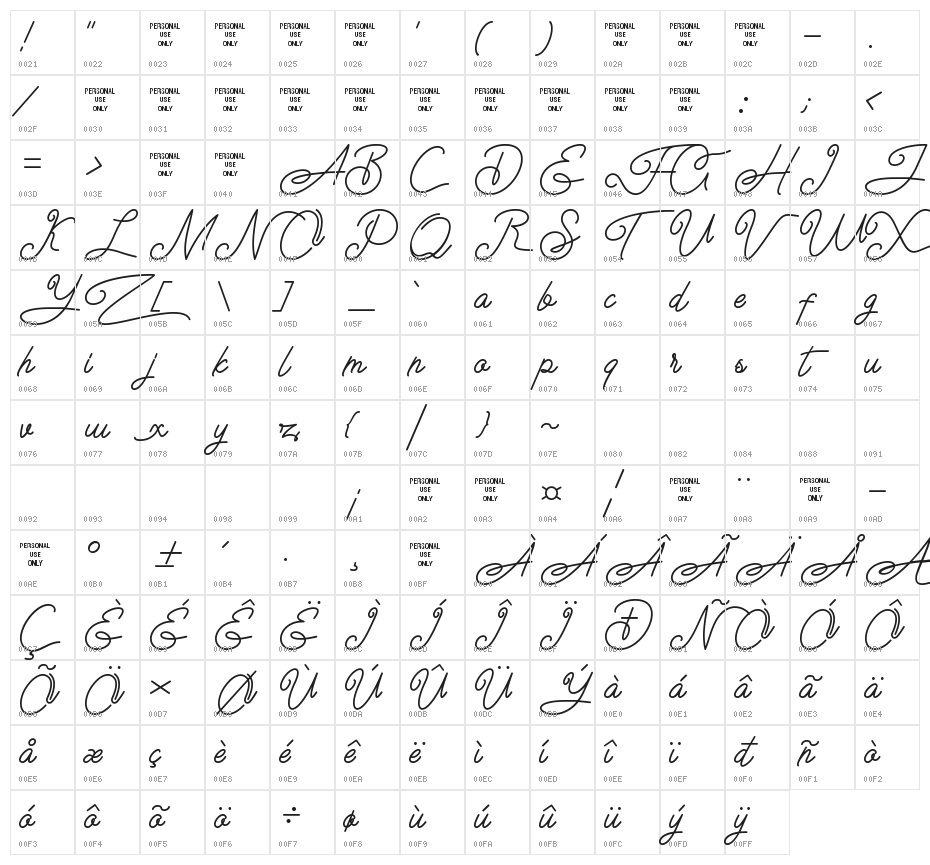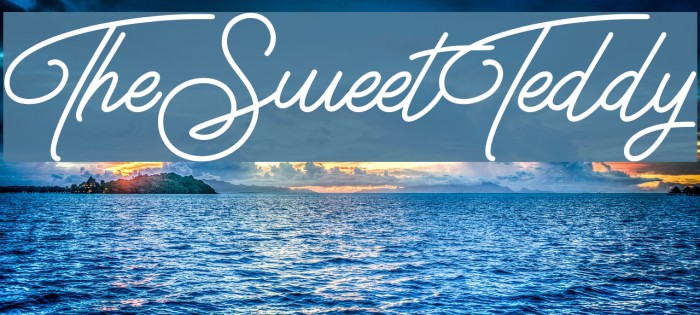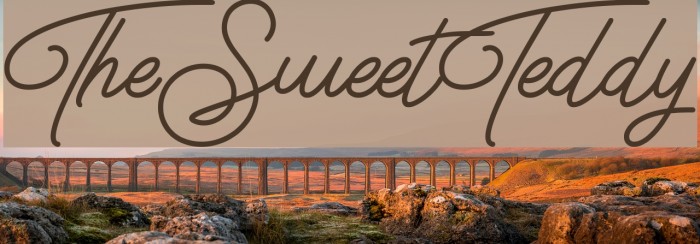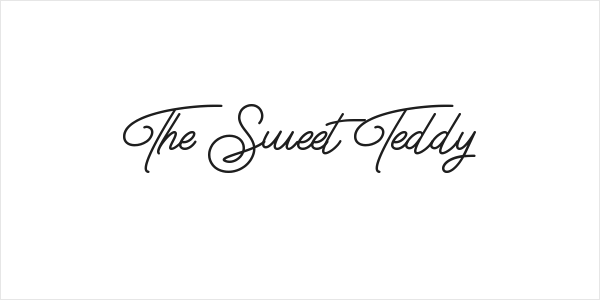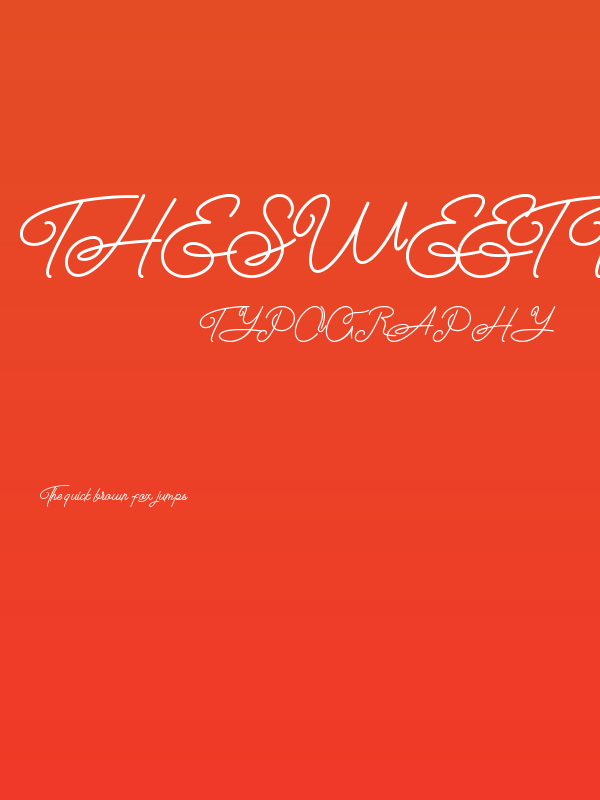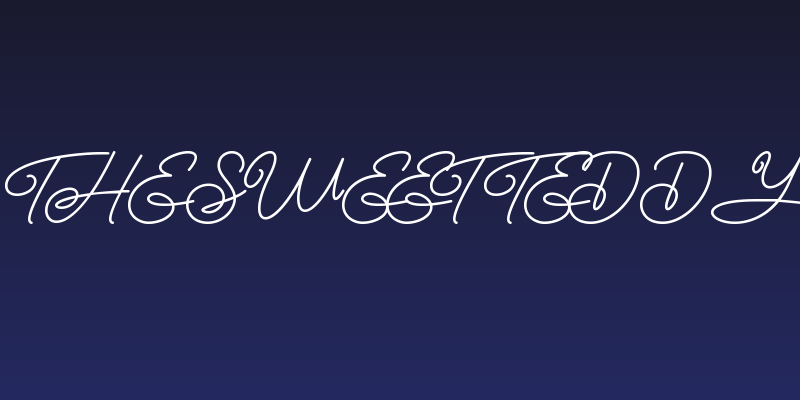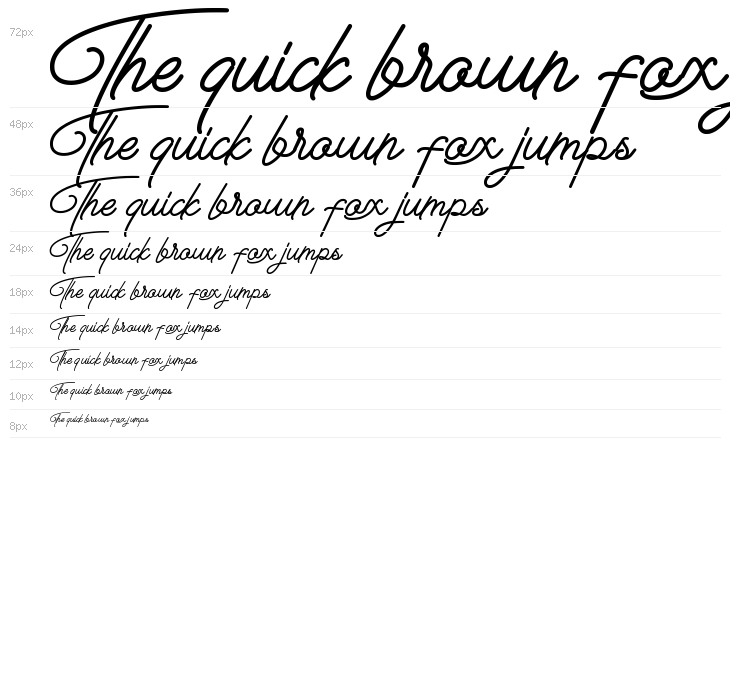
The Sweet Teddy Font
The Sweet Teddy Description
This font features a whimsical and elegant script style, characterized by its flowing, interconnected letters. The uppercase letters exhibit a graceful looped design, while the lowercase letters maintain a smooth, cursive appearance. The font's playful nature is enhanced by its decorative swashes and flourishes, making it ideal for creative and artistic projects. The characters are well-spaced, ensuring readability while maintaining an artistic flair. The font's unique style is suitable for designs that require a touch of elegance and creativity.
| Proposed Projects | Ideal for wedding invitations, greeting cards, branding, and artistic projects. |